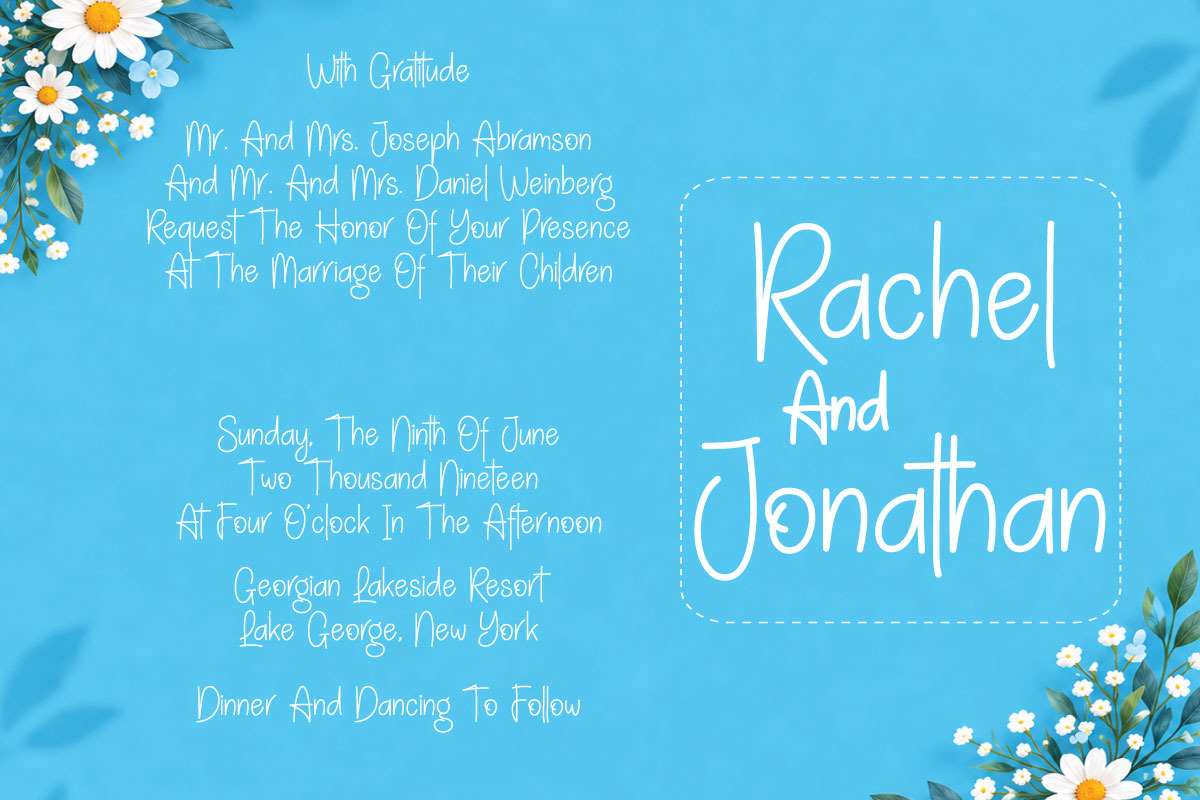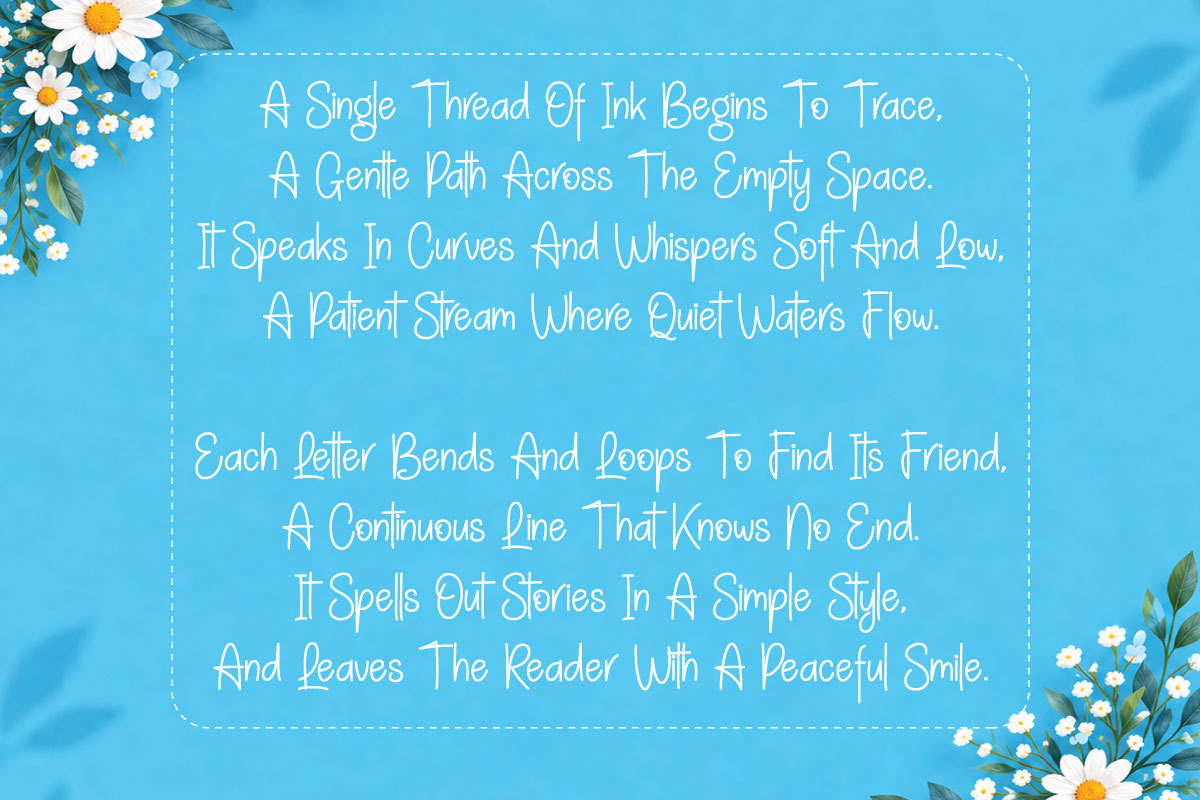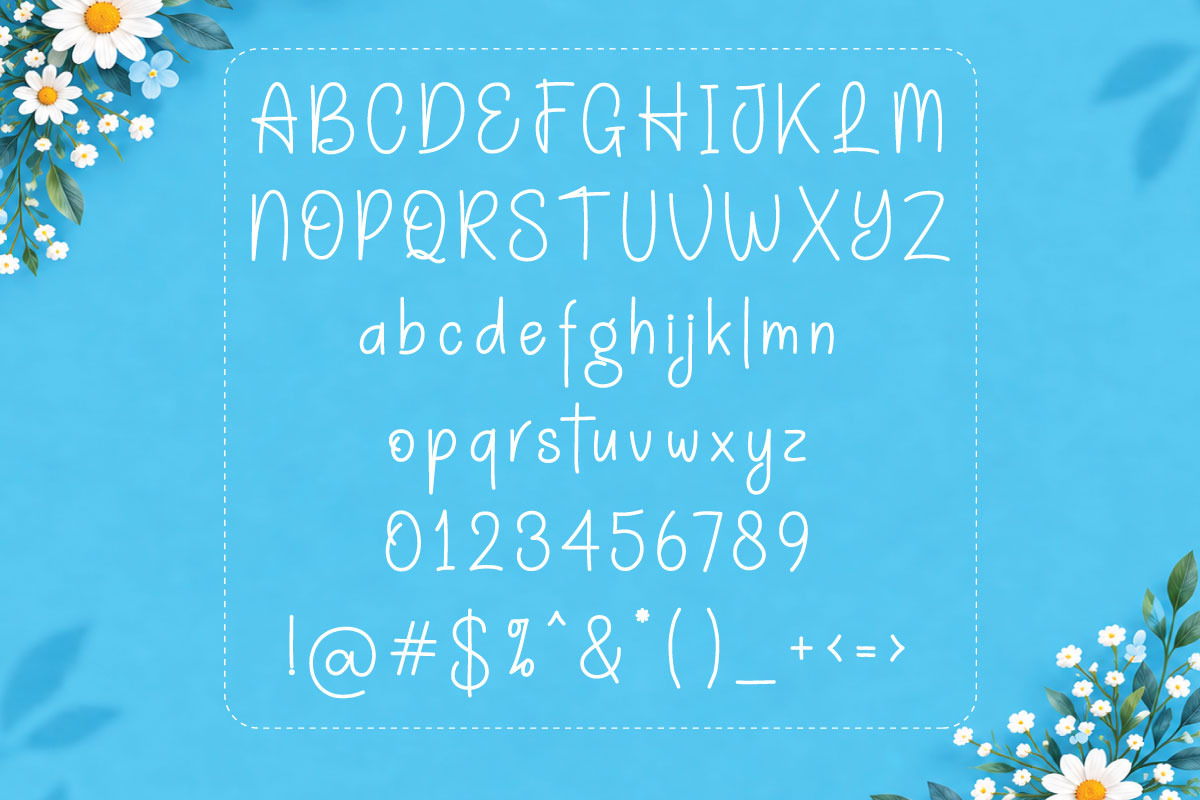
Lutheria- True Single Line
Bring ultimate precision and versatility to your projects with LUTHERIA – A premium font featuring both Single-Line and Double-Stroke versions, lovingly crafted for your crafting pleasure.
❓ WHAT ARE SINGLE LINE & DOUBLE STROKE FONTS?
Single Line Font: Designed with a single hairline vector path. Your machine follows the line just once, using vector lines instead of vector fills. This drastically increases your productivity, cutting down laser engraving and processing times by up to 90%!
Double Stroke Font: Designed with a double outline vector path that creates a clean, consistent hollow effect. Perfect for when you need your text to look slightly bolder and stand out more on your material without filling it in.
💖 PERFECT FOR MULTIPLE APPLICATIONS:
Laser Engraving & Cutting: Works beautifully for scoring and engraving on wood, acrylic, plastics, leather, and cardboards.
Foil Quilling & Sketching: Perfect for Silhouette sketch pens, foil transfer tools, and engraving tips.
Stationery Design: Elegant wedding invitations, greeting cards, customized placeholders, and coasters.
Apparel & Merch: Minimalist continuous-line text layouts for custom shirts and tote bags.